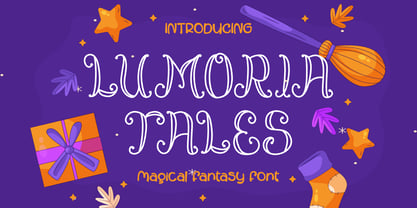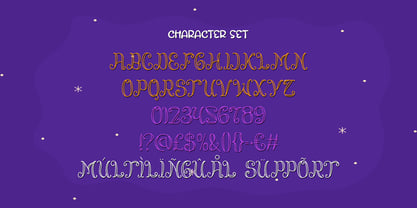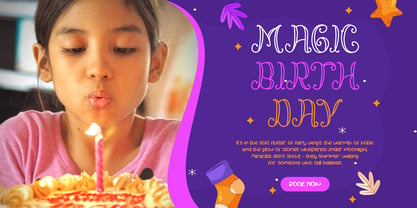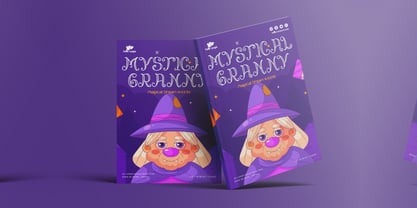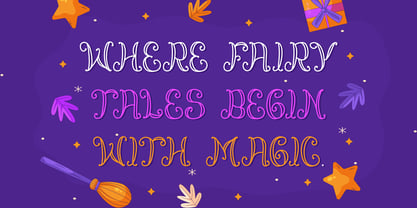
Lumoria Tales
by Shanaf
The Lumoria Tales Font Family was designed by Yesie Erma Yunita and published by Shanaf. Lumoria Tales contains 1 styles. More about this family
Step into a world of wonder with Lumoria Tales, a magical fantasy font crafted to spark your imagination. This display typeface exudes enchantment with its elegant, swirling letterforms, reminiscent of handwritten fairy tale manuscripts. Each character is adorned with intricate curls and curls, evoking a sense of spellbound charm and whimsical storytelling. The font embraces high contrast between thick and thin strokes, making it ideal for fantasy titles, children's books, birthday invites, and magical branding. The layout is designed to dazzle—accentuated with soft pastel colors, floating stars, sparkles, and fantasy-themed illustrations, perfectly framing the typeface’s enchanting presence.
Lumoria Tales offers both uppercase and lowercase alphabets, numerical digits, and a full punctuation set, complete with multilingual support. Whether used on purple-themed packaging, book covers, or party posters, it maintains a balance between playful and elegant. From witches' birthday wishes to charming tale book headers, this font transports viewers into realms of stardust and spellbinding stories. Designed with meticulous attention to fantasy aesthetics, Lumoria Tales is more than just a font—it’s a portal to another world.